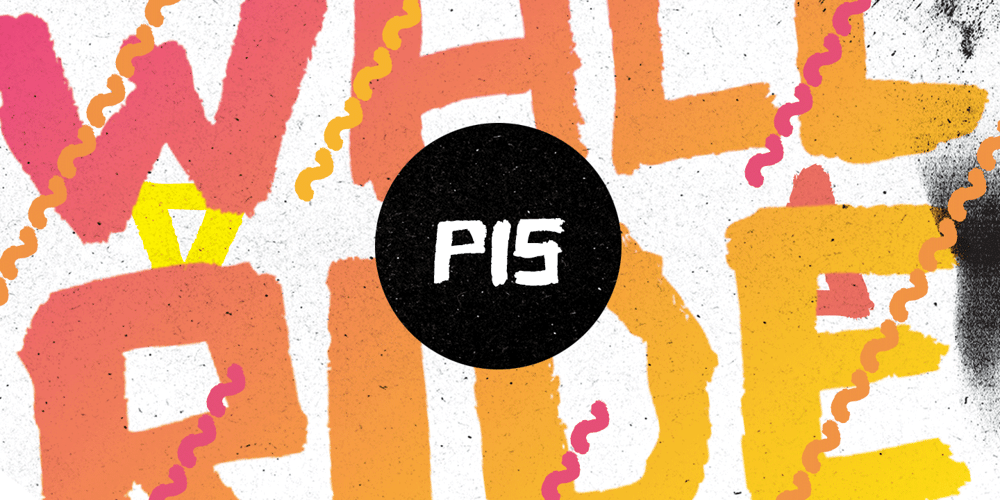
PiS Wallride Font Family was designed by Hannes Siengalewicz and published by PiS. PiS Wallride contains 1 styles and family package options. This font is the byproduct of a T-shirt line for a punk/hardcore band I did a while ago. The guys like it skatestyle, so I scribbled their bandname and tagline with fat edding markers, which was so much fun that I decided to make it into a whole font. PiS Wallride features ligatures and OpenType alternates for an even grittier and more authentic feel.